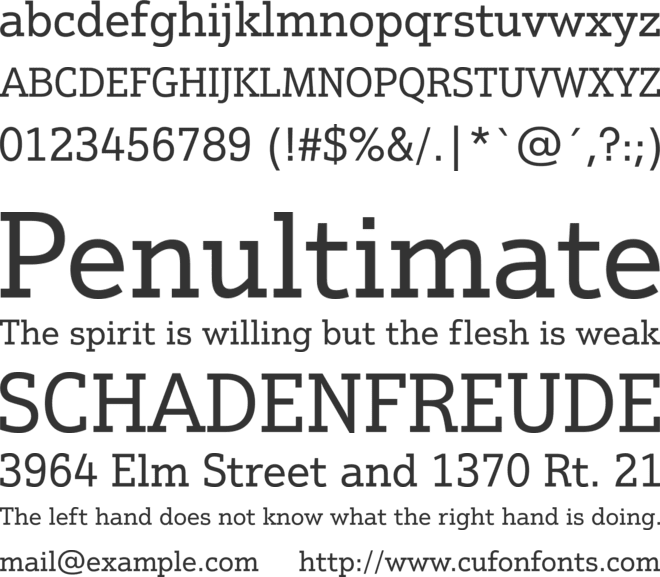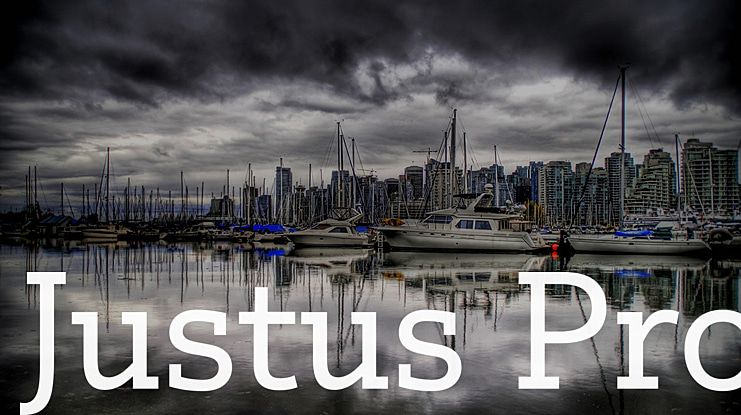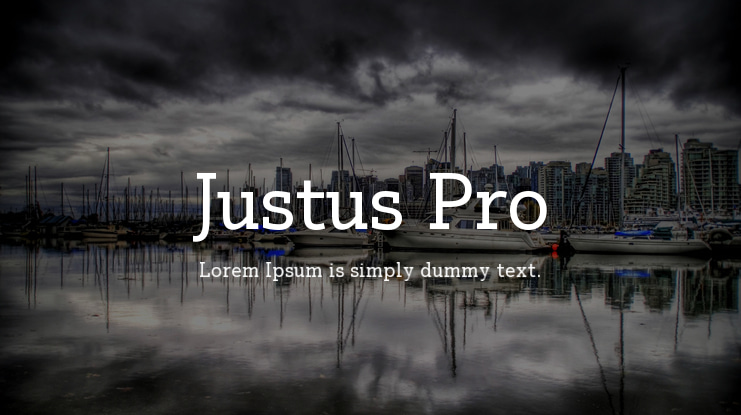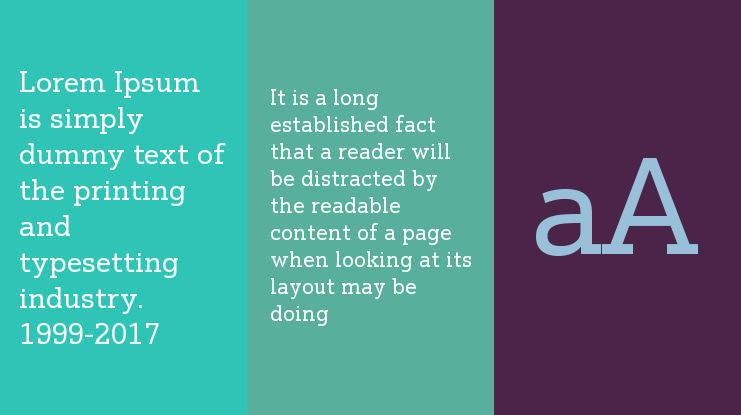
Justus Pro Font Family
Justus Pro is a modern Egyptienne with a humanistic touch. It avoids the slightly rustic character of older Egyptienne designs and, despite its distinctive forms, develops a high level of elegance and readability.
2011 by (URW)++ Design & Development